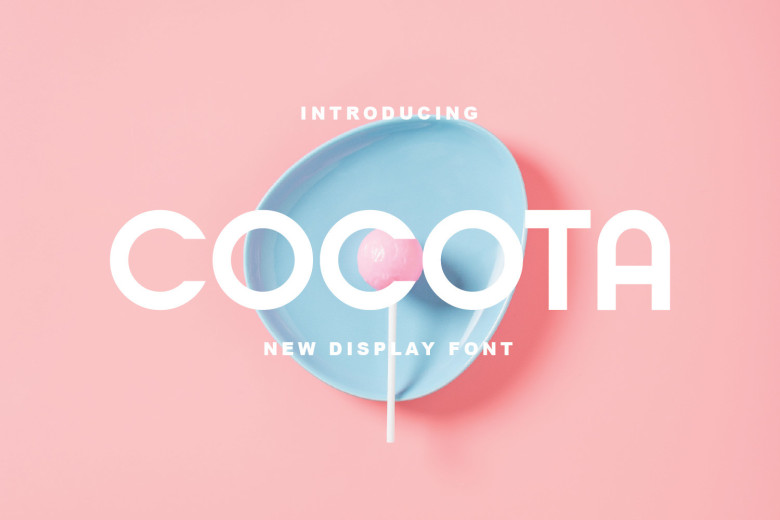
Cocota Font
Cocota is an easy-to-read sans serif/display font with friendly characteristics that makes an impactful statement about communication and trustworthiness. Perfect for digital design projects, presentations or greeting cards – Cocota could become your go-to font in no time.
Cocota Sans Serif Font